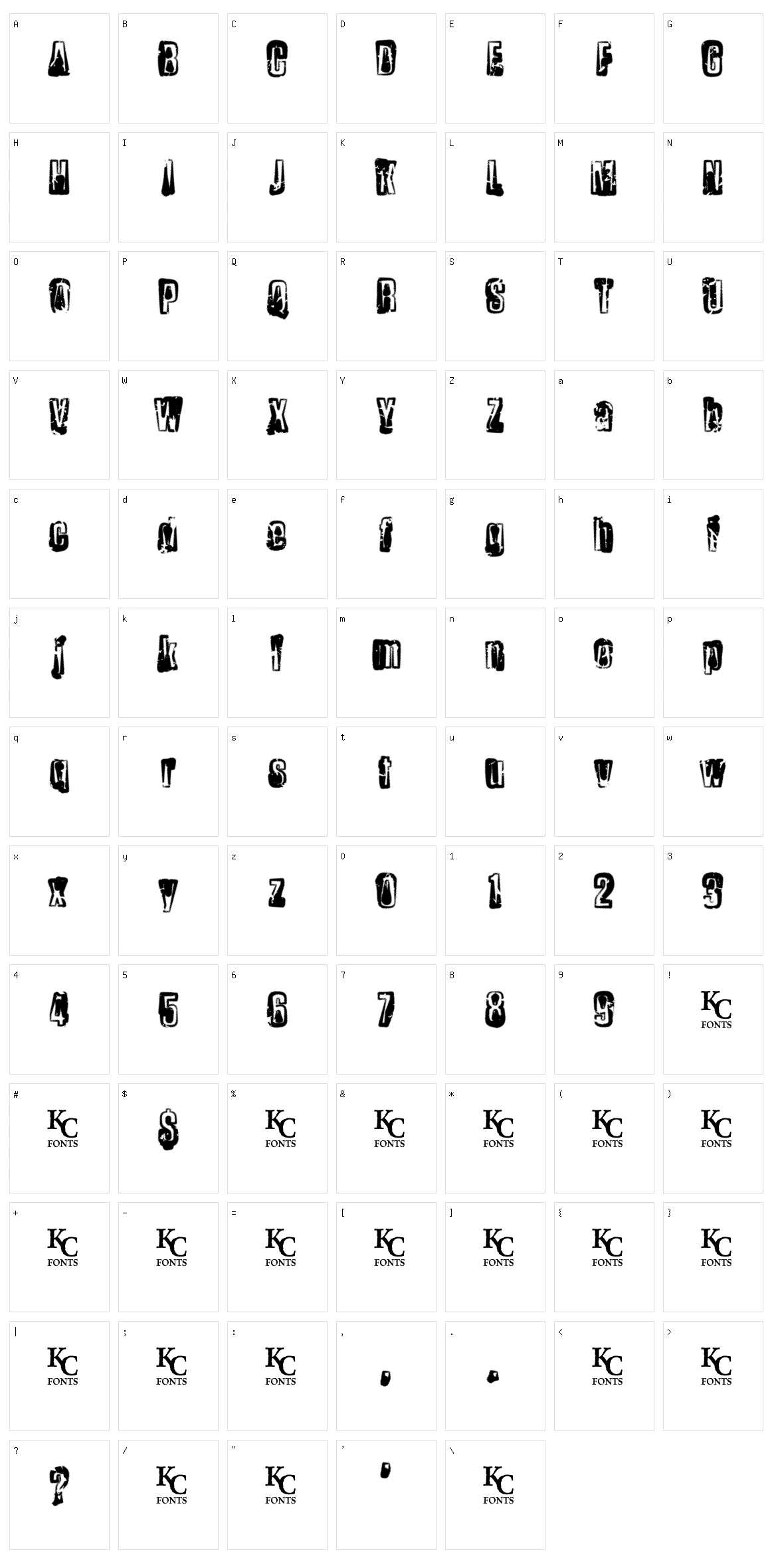
The free font Chemical Reaction is carefully designed by KC Fonts, showcasing a thoughtful balance of creativity and usability and falls under the Distorted font style. When you download the ZIP file, it contains only 838.19 KB of font files, making it lightweight and quick to download. Please review the license details below to understand permitted usage and distribution rights. If license information is not available, we recommend using this font for personal projects only or contacting the author directly for commercial usage permissions.